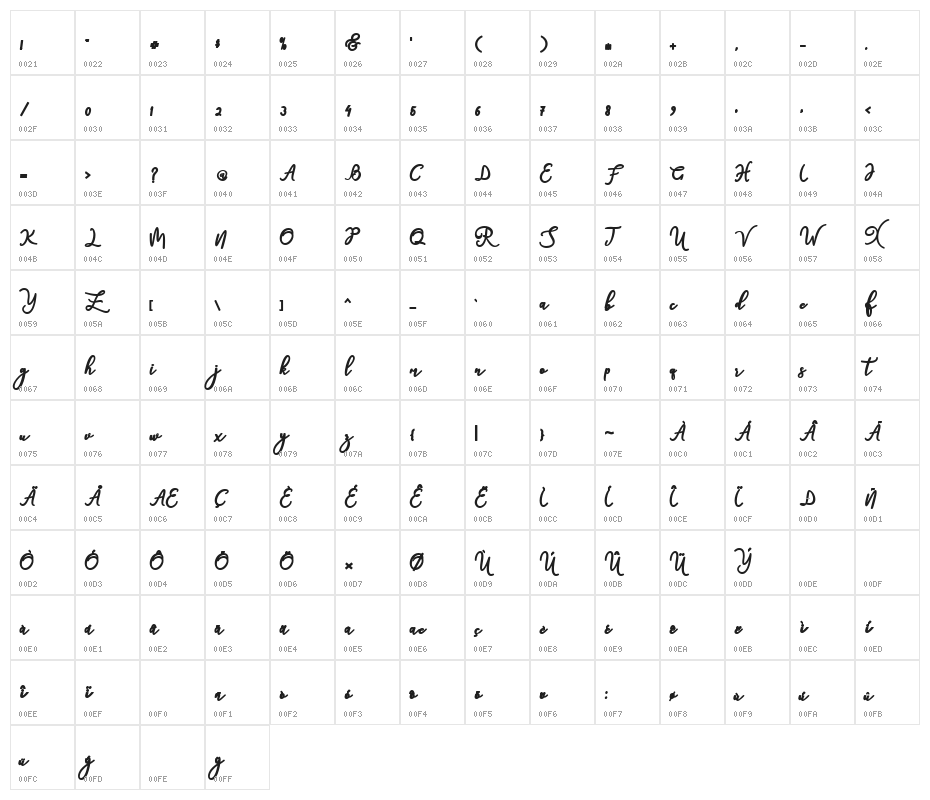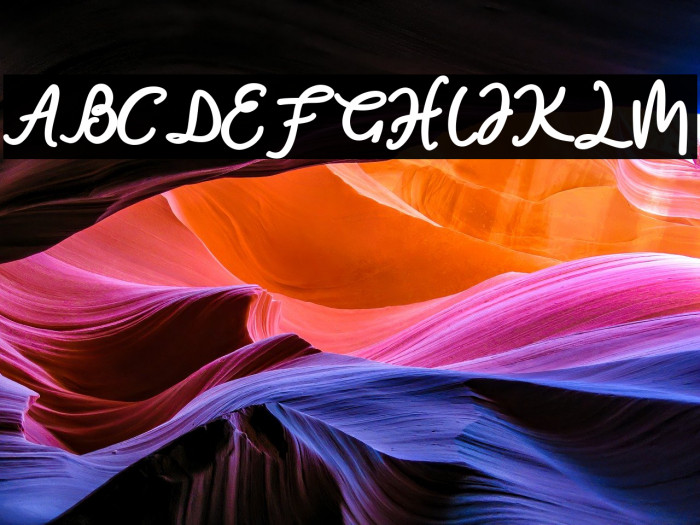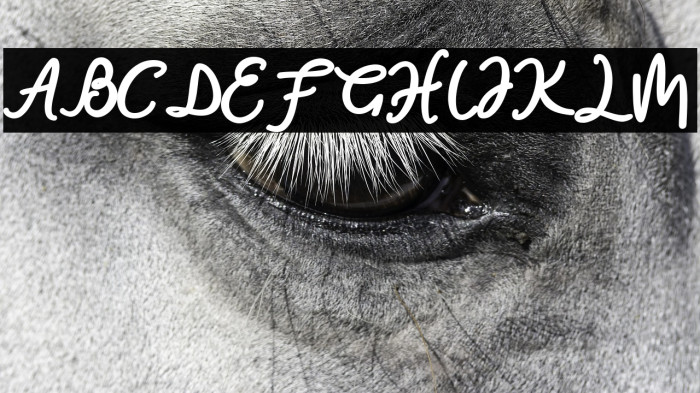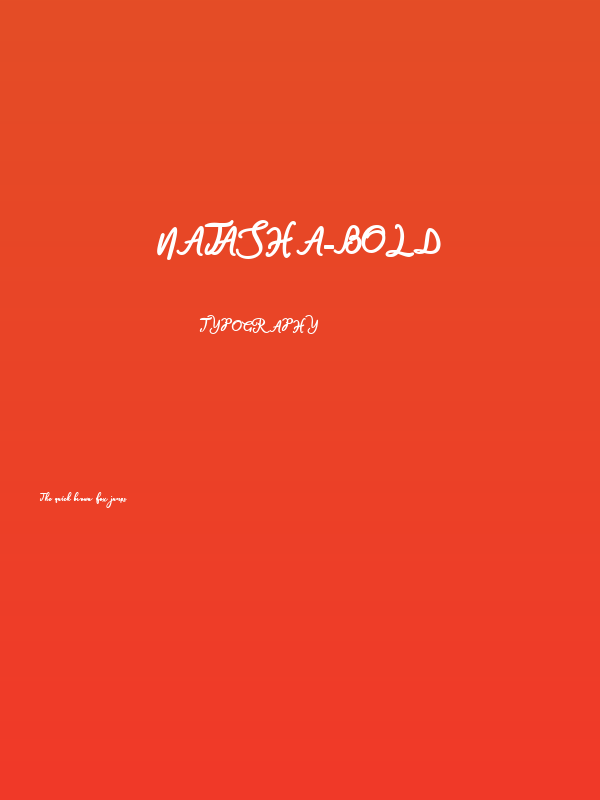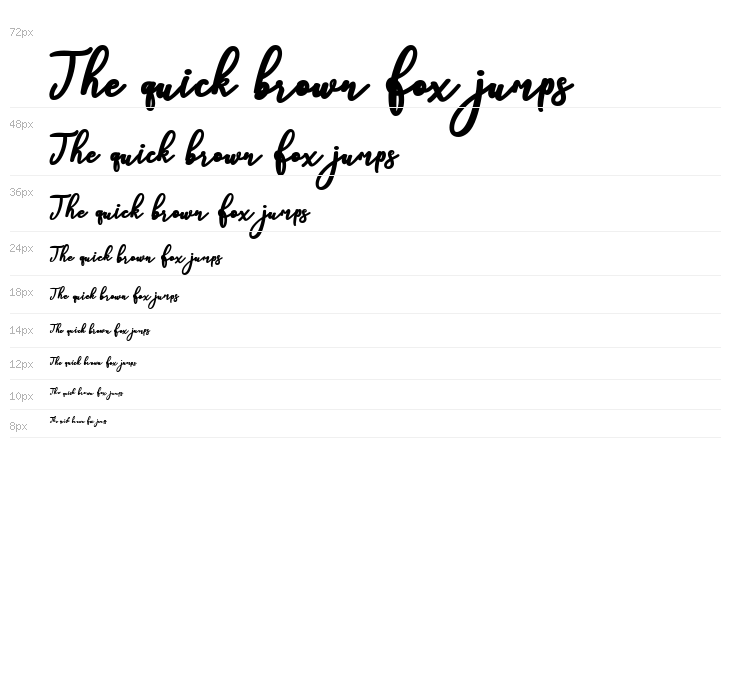
natasha-Bold Font
natasha-Bold Description
This font features a bold, cursive style with a flowing, handwritten appearance. The uppercase letters are elegantly looped and connected, giving a sense of continuity and fluidity. The lowercase letters maintain a consistent style, with smooth curves and a slightly slanted orientation. The numbers are bold and clear, matching the overall aesthetic of the font. Special characters are creatively designed, maintaining the cursive theme while ensuring readability. This font exudes a sense of elegance and sophistication, making it suitable for various decorative purposes.
| Use Case | Logos, Invitations, Decorative Text |